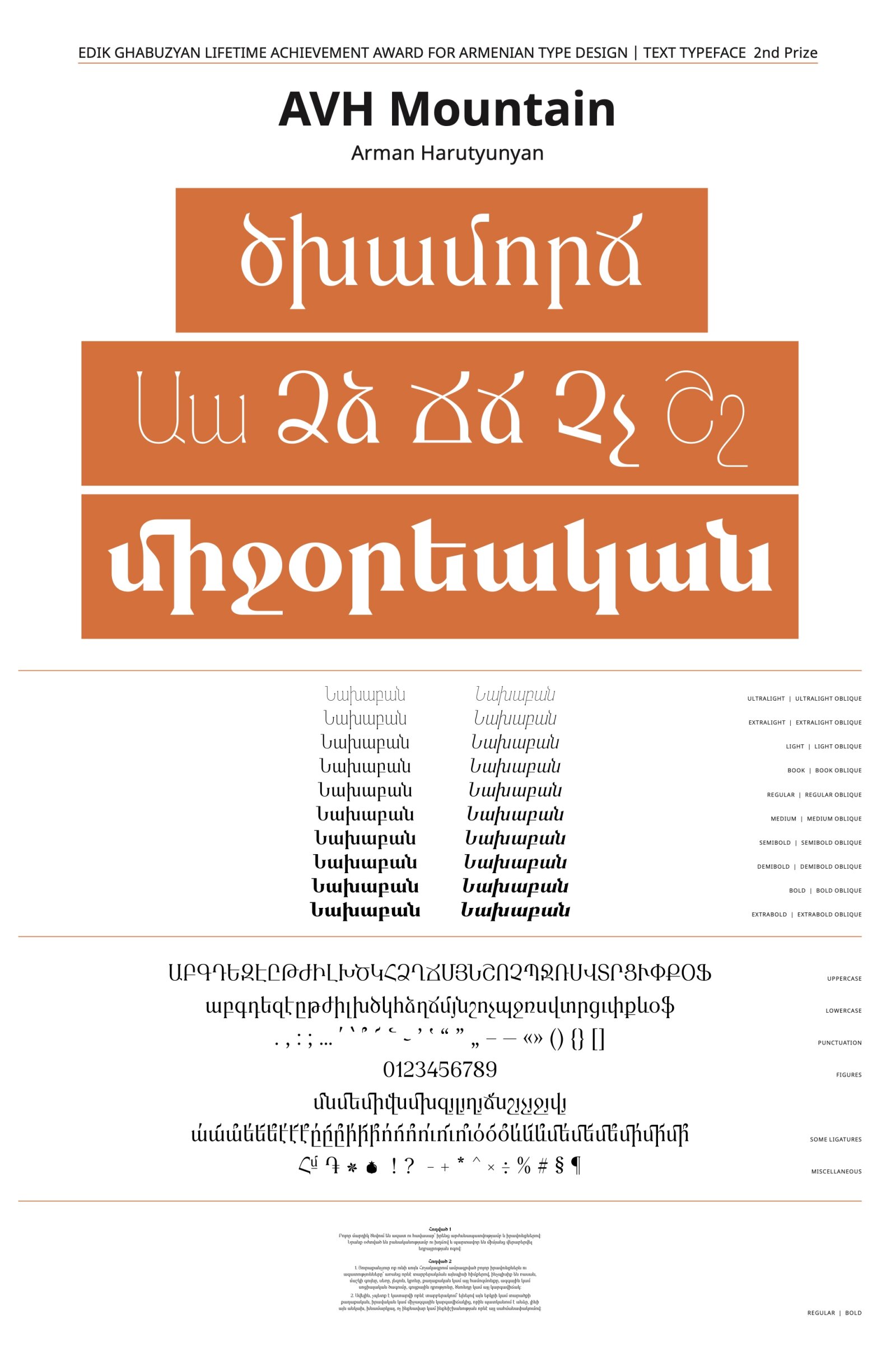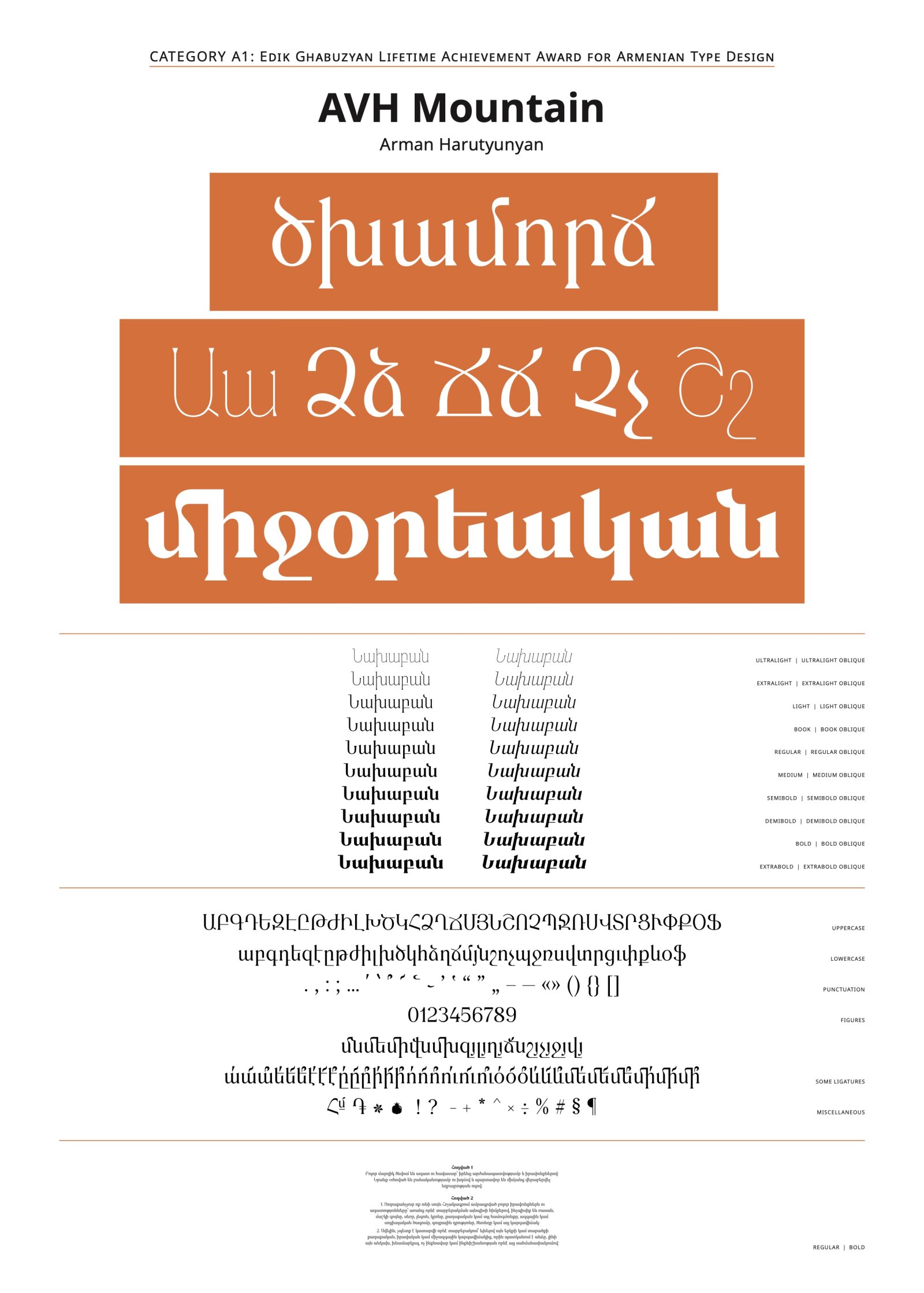
AVH Mountain
by Arman Harutyunyan
Armenian Special – Ghabuzyan Lifetime Award
The typeface is a super family featuring 10 upright fonts and 10 oblique variants. Styles such as UltraLight, ExtraLight, Light, and ExtraBold are ideally suited for employment as display fonts, suitable for titles, posters, and similar applications. Meanwhile, styles ranging from Book to Bold are recommended for textual content.